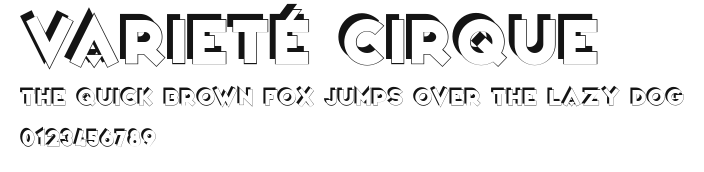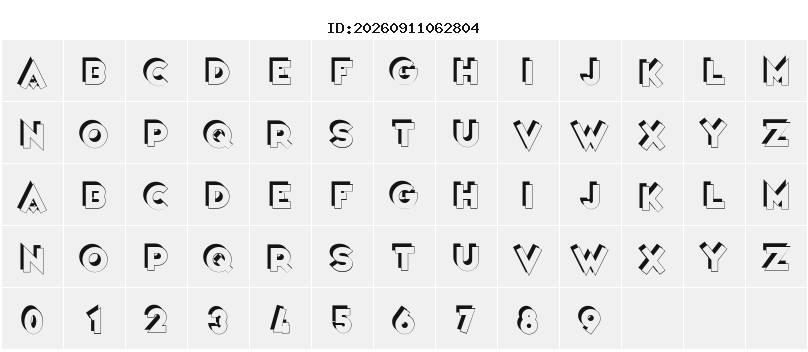
• Font Name: Varieté Cirque
• Font ID: PeterWiegel: Varieté Cirque: 2009
• Full Font Name: Varieté Cirque
• Designer: Peter Wiegel
• Manufacturer: Peter Wiegel
About Varieté Cirque.ttf
Varieté Cirque.ttf is a modern, elegant sans-serif font designed for ultimate readability and visual harmony. Perfect for branding, headlines, web design, and print materials.